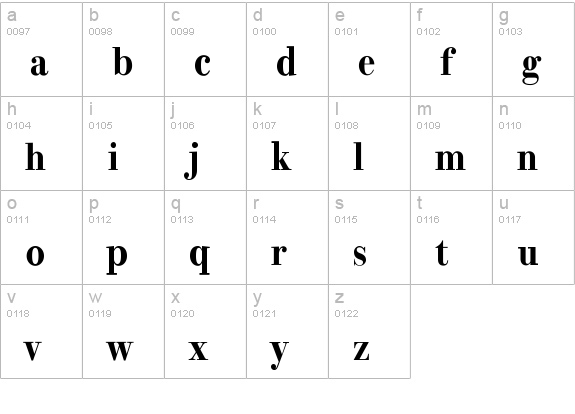
Ironbridge-ExtraBold is an extra-heavy, attention-grabbing variant in the Ironbridge typeface family \xE2\x80\x94 well suited to high-impact headlines, posters, and bold branding.
Ironbridge-ExtraBold font is a striking and powerful typeface that demands attention. With its bold and robust design, this font exudes confidence and strength. The thick and heavy strokes give each letter a sturdy and impactful presence, making it perfect for headlines, logos, and any design project that requires a bold statement. But what sets Ironbridge-ExtraBold font apart is not just its visual impact, but also its accessibility. This font is freely available to download at FontsMarket.com, allowing designers and creatives to easily access and utilize its impressive features. Whether you are a professional designer or a hobbyist, Ironbridge-ExtraBold font offers you the opportunity to elevate your projects without breaking the bank. With its wide range of characters, Ironbridge-ExtraBold font is versatile and adaptable to various design styles and themes. Its clean and precise lines ensure legibility even at smaller sizes, making it equally suitable for body text or captions. The attention to detail in the design of each letter adds a touch of sophistication and elegance, making it a standout choice for luxury branding and high-end editorial layouts. Ironbridge-ExtraBold font is a testament to the power of typography in visually communicating a message. Its bold and commanding presence grabs the viewer's attention and conveys a sense of authority and confidence. Whether used in print or digital media, this font makes a lasting impression. So why settle for ordinary when you can make a bold statement with Ironbridge-ExtraBold font? Download it for free at FontsMarket.com and unleash its power in your designs. Let this font be the driving force behind your creative endeavors, helping you captivate your audience and leave a lasting impression.